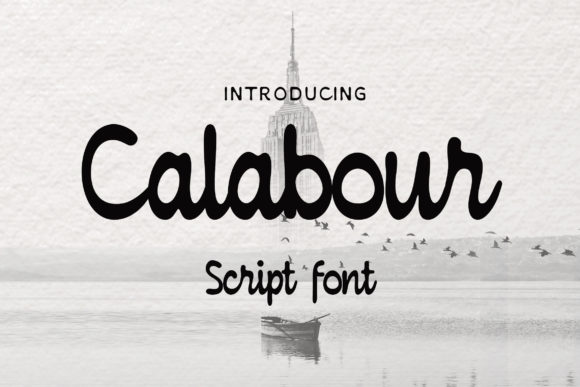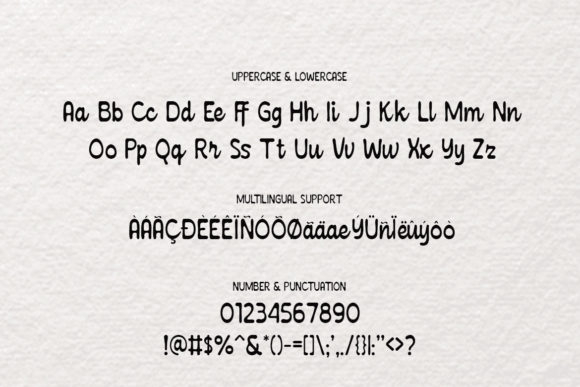
About Calabour Font
Calabour is a vintage and simple script font featuring charming, playful characters that seem to dance along the baseline. Add this font to your most creative ideas, and notice how it makes them stand out!